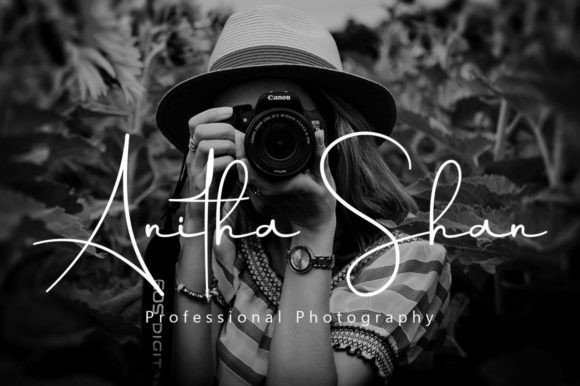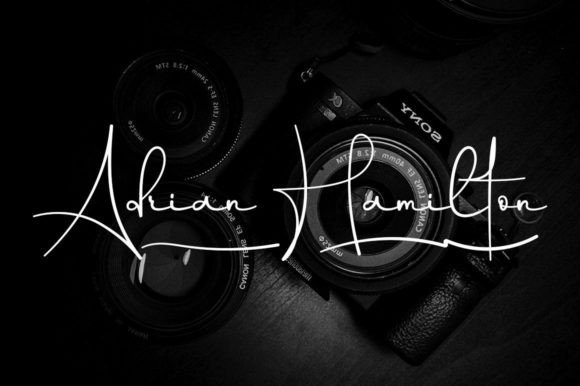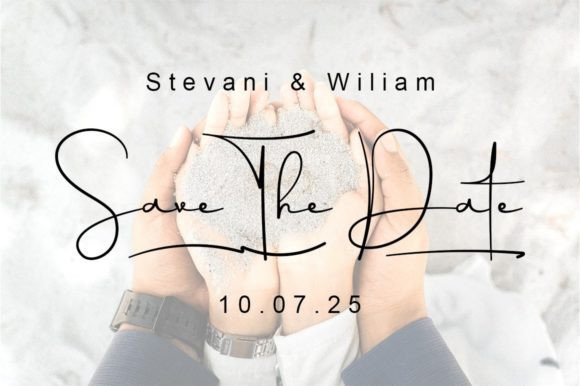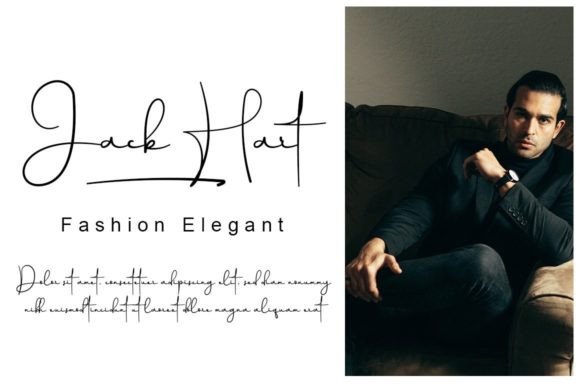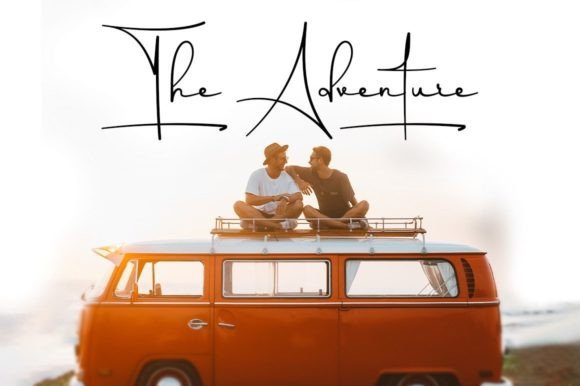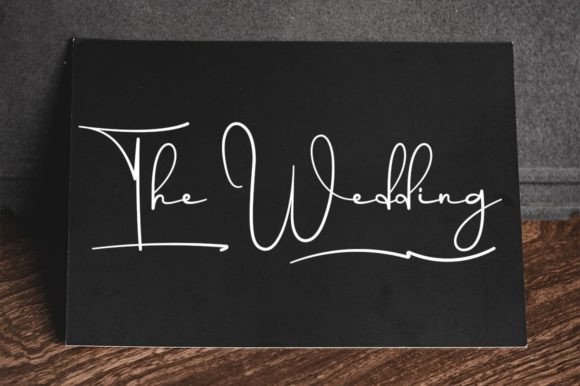
Better Signature Font: Elevate Your Designs with Style
Are you tired of using the same old fonts in your designs? Do you want to add a touch of elegance and sophistication to your creations? Look no further than the Better Signature Font. This distinct and fashionable signature font is perfect for designers and crafters who want to take their work to the next level.
What Makes Better Signature Font Stand Out
Better Signature Font is a game-changer in the world of typography. Its unique and stylish design makes it an incredible asset to your font library, regardless of the topic or theme you’re working on. Whether you’re creating a logo, branding materials, or social media graphics, this font is sure to elevate your design and make it stand out from the crowd.
One of the best features of Better Signature Font is that it’s PUA (Private Use Area) encoded. This means that you can access all of the glyphs and swashes with ease, giving you maximum flexibility and creative control. With PUA encoding, you can easily navigate through the font’s extensive character set and select the perfect glyphs to suit your design needs.
Better Signature Font offers endless design possibilities. Its elegant and flowing lines make it perfect for creating sophisticated and eye-catching designs. You can use it to create:
- Beautiful wedding invitations and stationery
- Elegant logos and branding materials
- Stunning social media graphics and quotes
- Creative packaging and product labels
- And much more!
Why Designers and Crafters Love Better Signature Font
Designers and crafters love Better Signature Font for its versatility and style. Here are just a few reasons why:
- Unique and distinctive design: Better Signature Font has a one-of-a-kind design that will set your work apart from others.
- Easily readable: Despite its elegant and cursive design, Better Signature Font is easily readable, making it perfect for body text and headings.
- Flexible and adaptable: This font can be used for a wide range of design projects, from logos and branding to social media graphics and more.
- High-quality and professional: Better Signature Font is a high-quality font that’s perfect for professional designers and crafters who want to create stunning designs.
Tips for Using Better Signature Font
Here are a few tips for using Better Signature Font in your designs:
- Pair it with a sans-serif font: Better Signature Font pairs perfectly with sans-serif fonts like Arial, Helvetica, or Open Sans.
- Experiment with different sizes and colors: Play around with different sizes and colors to find the perfect combination for your design.
- Use it for headings and titles: Better Signature Font is perfect for headings and titles, but you can also use it for body text for a more elegant look.
In conclusion, Better Signature Font is a must-have font for designers and crafters who want to elevate their designs with style. Its unique and fashionable design, PUA encoding, and endless design possibilities make it an incredible asset to your font library. Whether you’re creating logos, branding materials, or social media graphics, Better Signature Font is sure to take your work to the next level.